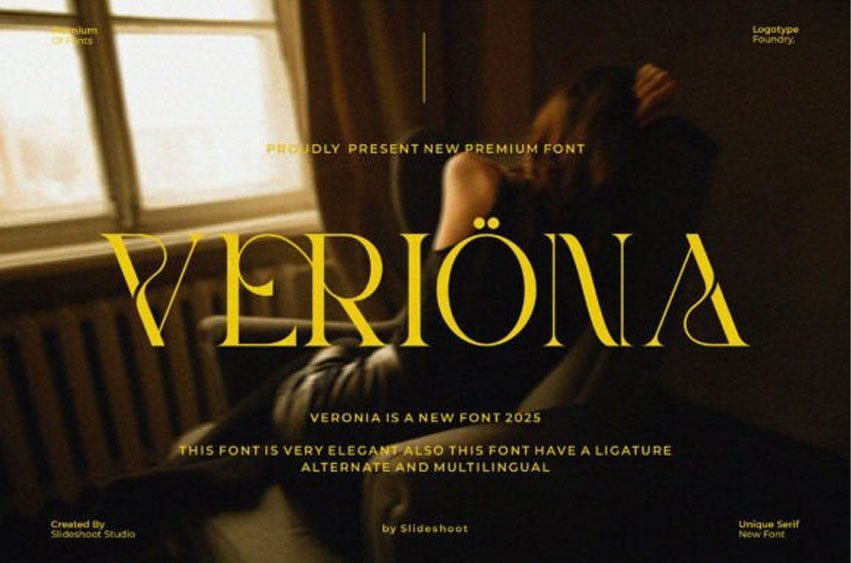
Veriona Font is a luxurious serif font with a modern, elegant touch.
Featuring ligatures, alternates, and multilingual support, this font is ideal for high-end branding, editorial layouts, wedding designs, and premium product packaging. Its refined style adds sophistication to any project.